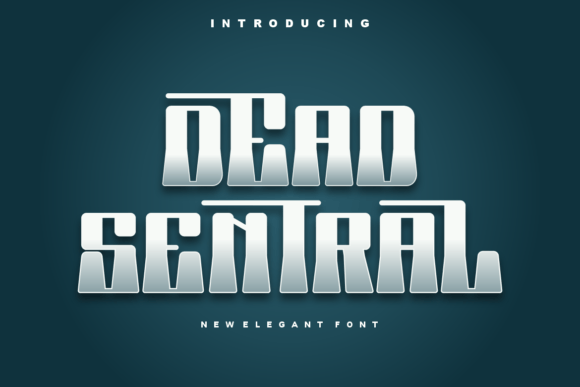
Introducing Dead Sentral Font: A Bold and Authentic Display Font
In the world of typography, fonts play a crucial role in conveying messages, expressing emotions, and creating brand identities. Among the numerous fonts available, Dead Sentral Font stands out as a bold and authentic display font that has gained significant attention in recent times. In this article, we’ll delve into the features, benefits, and uses of Dead Sentral Font, exploring why it’s an excellent choice for various branding projects.
What is Dead Sentral Font?
Dead Sentral Font is a modern, bold, and authentic display font designed to make a statement. Its unique style and characteristics make it an ideal choice for designers, artists, and brands looking to create a strong visual impact. The font’s design is inspired by the concept of “dead” and “central,” which translates to a sense of boldness, confidence, and modernity.
Key Features of Dead Sentral Font
- Bold and Authentic: Dead Sentral Font boasts a bold and authentic style that grabs attention and conveys confidence.
- Modern Design: The font’s modern design makes it suitable for contemporary branding projects, including logos, t-shirts, and more.
- Versatile: Dead Sentral Font is versatile and can be used in a wide range of contexts, from digital media to print materials.
- Easy to Read: Despite its bold style, Dead Sentral Font is easy to read, making it perfect for headlines, titles, and short texts.
Benefits of Using Dead Sentral Font
Using Dead Sentral Font offers several benefits, including:
- Unique Brand Identity: Dead Sentral Font helps create a unique brand identity that stands out from the competition.
- Attention-Grabbing: The font’s bold style grabs attention and draws the audience in, making it perfect for advertising and promotional materials.
- Flexibility: Dead Sentral Font can be used across various platforms, including digital media, print materials, and merchandise.
- Time-Saving: With Dead Sentral Font, designers can save time and effort, as the font is easy to use and requires minimal editing.
Uses of Dead Sentral Font
Dead Sentral Font is suitable for a wide range of applications, including:
- Logo Design: The font’s bold style makes it perfect for logo design, helping brands create a strong visual identity.
- T-Shirt Printing: Dead Sentral Font is ideal for t-shirt printing, as its bold style and modern design make it stand out on apparel.
- Advertising and Promotion: The font’s attention-grabbing style makes it suitable for advertising and promotional materials, including posters, flyers, and brochures.
- Digital Media: Dead Sentral Font can be used in digital media, including social media graphics, website headers, and email marketing campaigns.
Tips for Using Dead Sentral Font
To get the most out of Dead Sentral Font, consider the following tips:
- Use it Sparingly: Use Dead Sentral Font sparingly to avoid overwhelming the audience. It’s perfect for headlines, titles, and short texts.
- Pair it with Other Fonts: Pair Dead Sentral Font with other fonts to create contrast and visual interest.
- Experiment with Colors: Experiment with different colors to find the perfect combination that suits your brand’s style and message.
In conclusion, Dead Sentral Font is a bold and authentic display font that offers a unique blend of style, versatility, and attention-grabbing appeal. Its modern design and ease of use make it an excellent choice for various branding projects, from logos and t-shirts to advertising and digital media. By incorporating Dead Sentral Font into your design projects, you can create a strong visual identity that resonates with your audience and sets your brand apart from the competition.